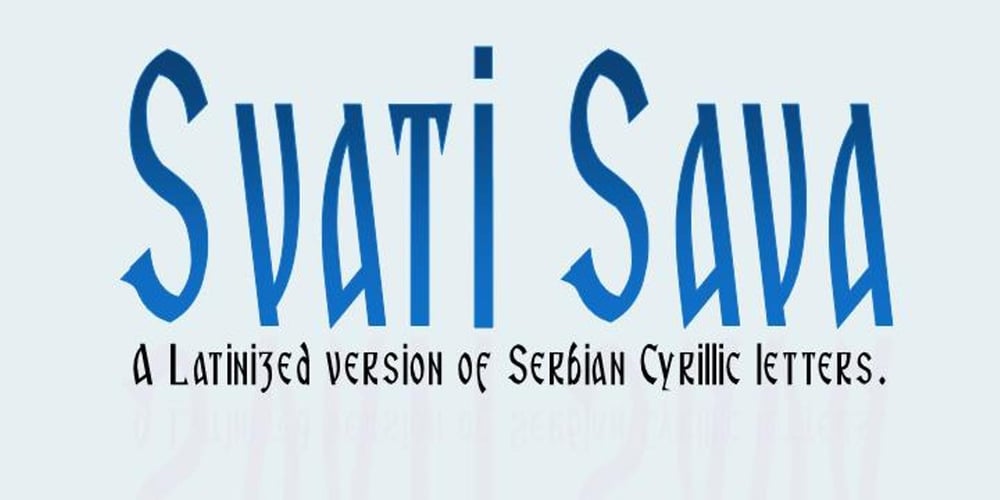
Svati Sava
Svati Sava font
Svati Sava Font Family was designed by Brett T. Johnson and published by Simeon out West. Svati Sava contains 4 styles and family package options. The Svati Sava font is a Latin Alphabet layout of a Serbian font. The original letterforms of this font struck me in their modern simplicity while retaing a traditional Eastern European feel and I wished to have a variant of it suitable for Latin Alphabets. To create this font I used many of the letterforms from Serbian and recreated a large portion of the miniscule alphabet. Svati Sava comes with full punctuation, a complete character set for most Western European Latin alphabet languages. Being a decorative font, it works best at larger point sizes.